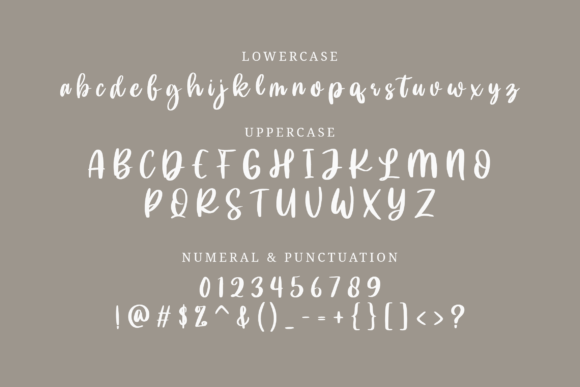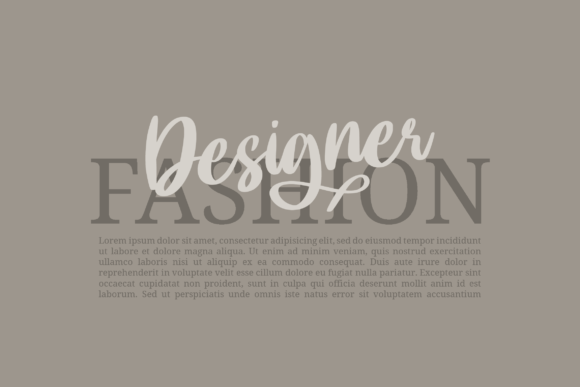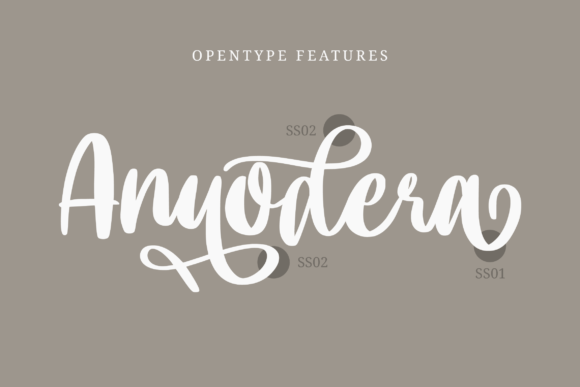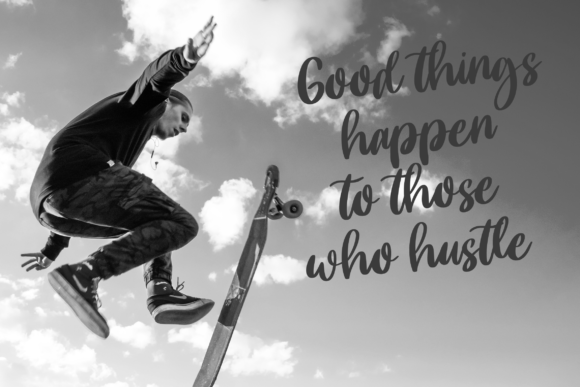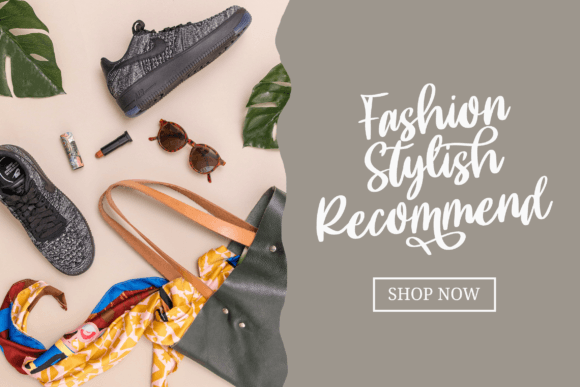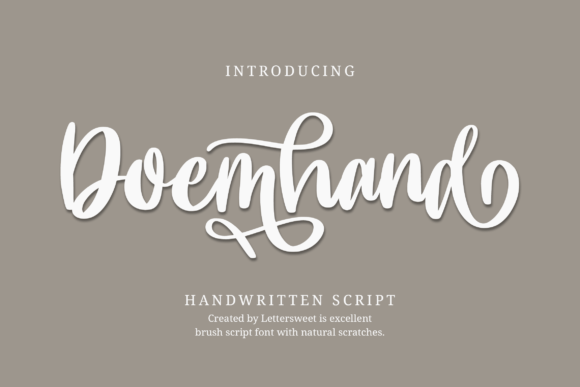
Introducing Doemhand Font: Elevate Your Designs with Elegance and Romance
Are you a designer or crafter looking for a font that exudes beauty, romance, and sophistication? Look no further than Doemhand Font, a stunning handwritten font that is sure to elevate your designs to the next level. With its classy, elegant, and modern look, Doemhand Font is the perfect choice for a wide range of design projects, from logos and branding to invitations, stationery, wedding designs, social media posts, and more.
A Beautiful and Romantic Handwritten Font
Doemhand Font is a beautiful and romantic handwritten font that is designed to add a touch of elegance and sophistication to your designs. Its flowing lines, delicate curves, and intricate details make it a standout font that is sure to capture the attention of your audience. Whether you’re creating a logo, invitation, or social media post, Doemhand Font is the perfect choice for designers and crafters who want to add a touch of romance and whimsy to their designs.
Classy, Elegant, and Modern Look
One of the standout features of Doemhand Font is its classy, elegant, and modern look. This font is designed to be versatile and can be used for a wide range of design projects, from traditional wedding designs to modern branding and advertising. Its clean lines, simple shapes, and elegant curves make it a font that is both timeless and contemporary, ensuring that your designs will look great for years to come.
Doemhand Font is a versatile font that can be used for a wide range of design projects, including:
• Logos and branding: Create a stunning logo or brand identity with Doemhand Font that exudes elegance and sophistication.
• Invitations and stationery: Add a touch of romance and whimsy to your invitations, stationery, and greeting cards with Doemhand Font.
• Wedding designs: Create beautiful wedding designs, including wedding invitations, programs, and decorations, with Doemhand Font.
• Social media posts: Elevate your social media posts with Doemhand Font and add a touch of elegance and sophistication to your online presence.
• Alternate characters: Access alternate characters and create unique and customized designs.
• Swashes: Add a touch of elegance and sophistication to your designs with beautiful swashes.
• Ligatures: Create stunning ligatures and add a touch of whimsy to your designs.
Why Choose Doemhand Font?
There are many reasons why designers and crafters choose Doemhand Font for their design projects. Here are just a few:
• Elegant and sophisticated: Doemhand Font is a beautiful and elegant font that adds a touch of sophistication to any design project.
• Versatile: Doemhand Font can be used for a wide range of design projects, from logos and branding to invitations and social media posts.
• High-quality: Doemhand Font is a high-quality font that is designed to produce stunning results.
In conclusion, Doemhand Font is a beautiful and romantic handwritten font that is perfect for designers and crafters who want to add a touch of elegance and sophistication to their designs. With its classy, elegant, and modern look, Doemhand Font is the perfect choice for a wide range of design projects, from logos and branding to invitations, stationery, wedding designs, social media posts, and more. Its PUA encoding makes it easy to access all of the glyphs and swashes, and its high-quality design ensures that your designs will look stunning. So why wait? Choose Doemhand Font for your next design project and elevate your designs to the next level!